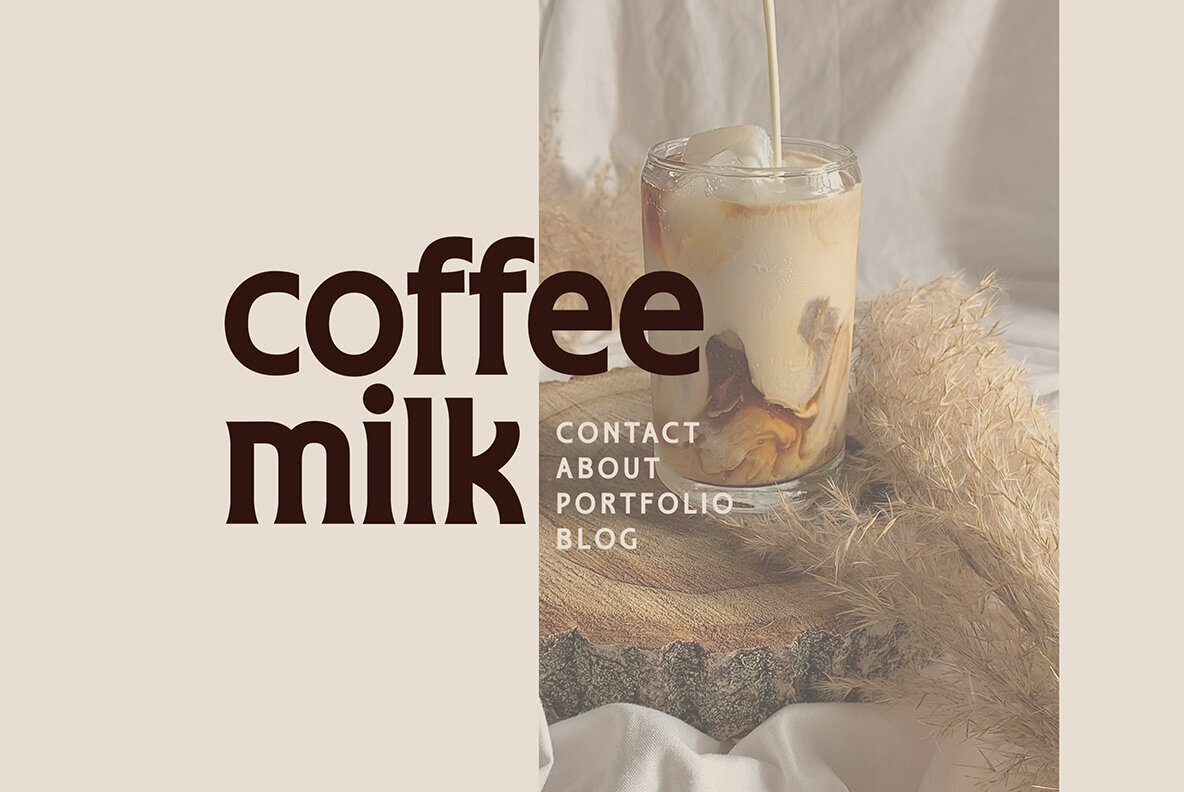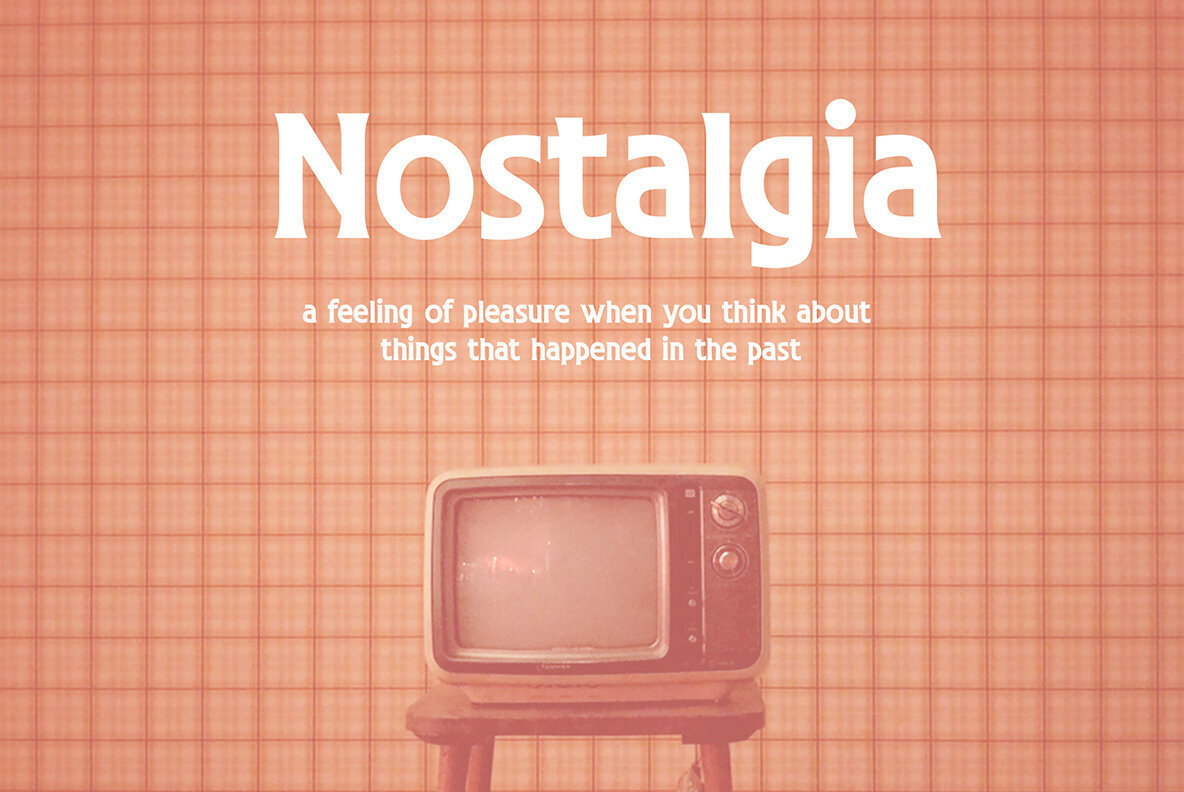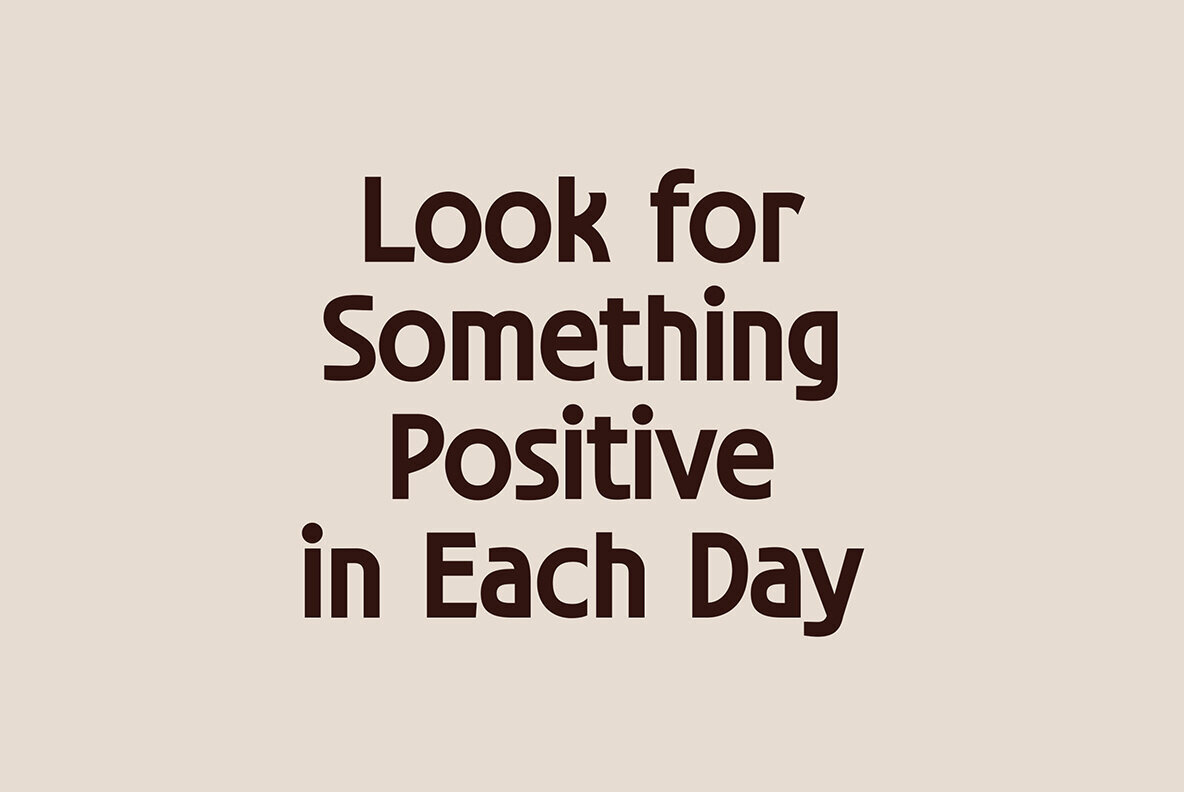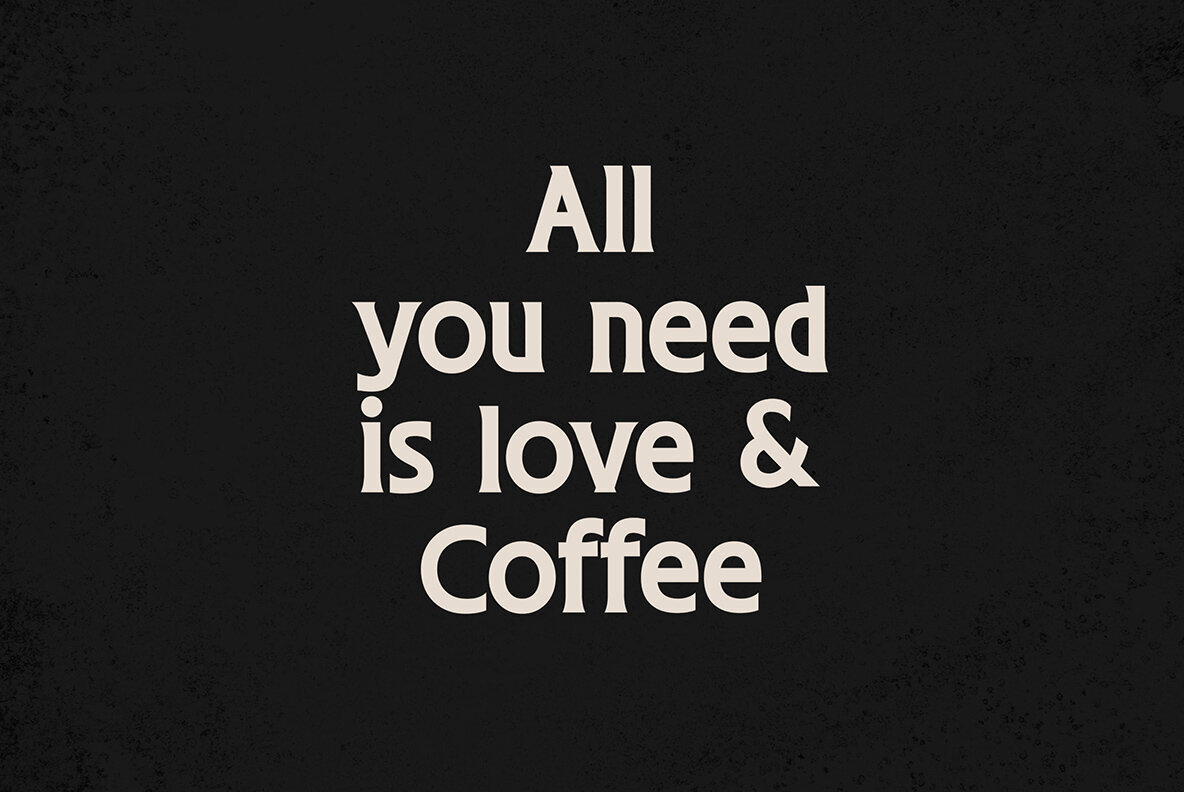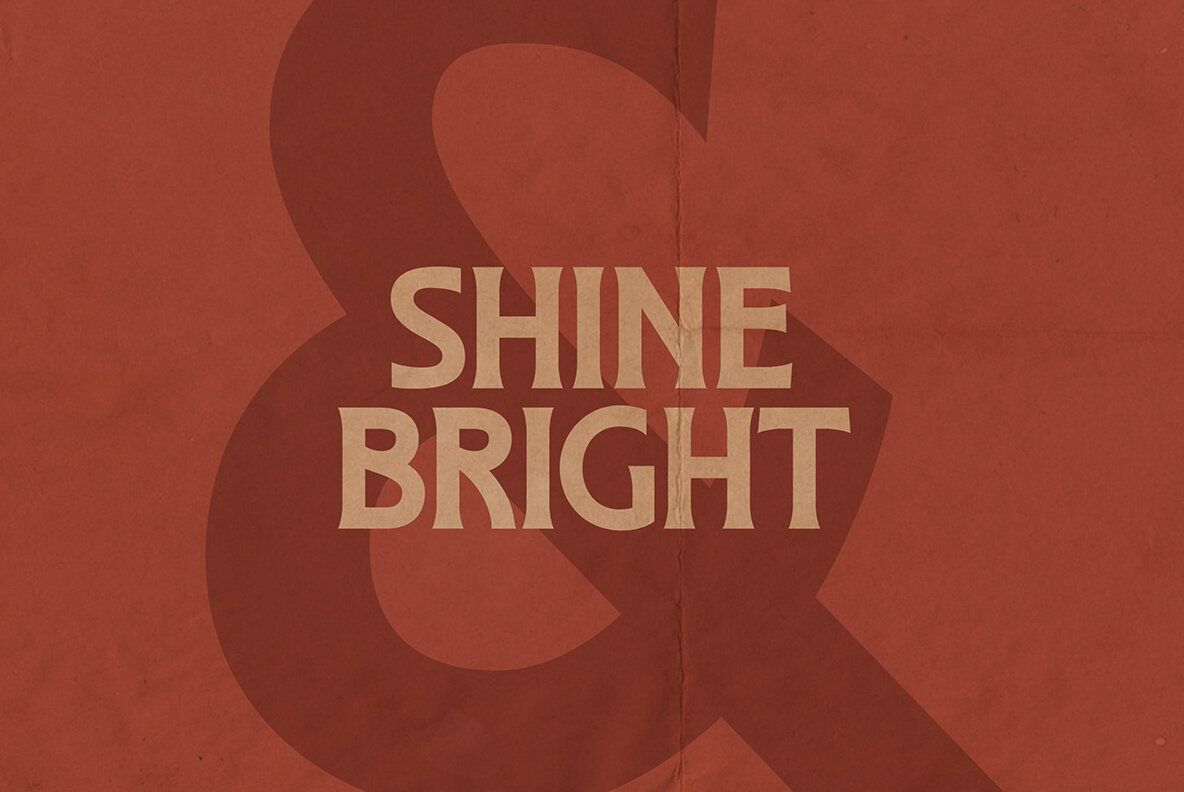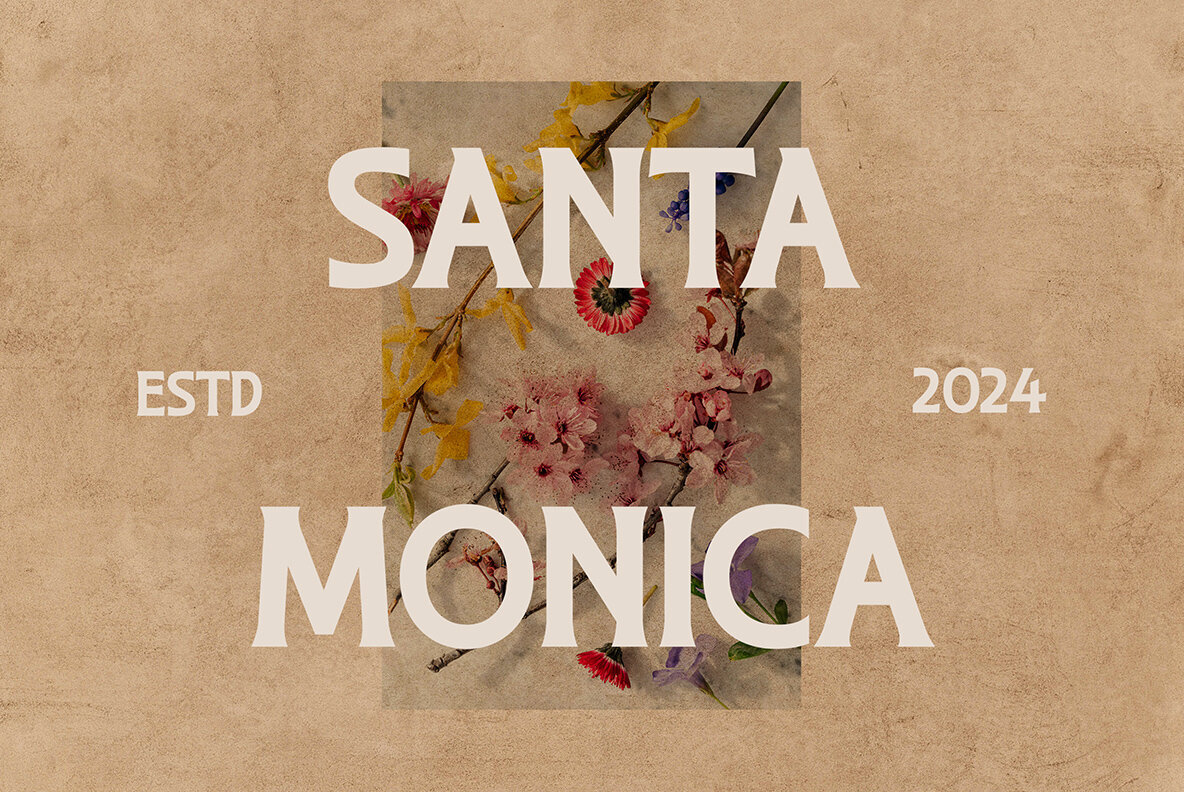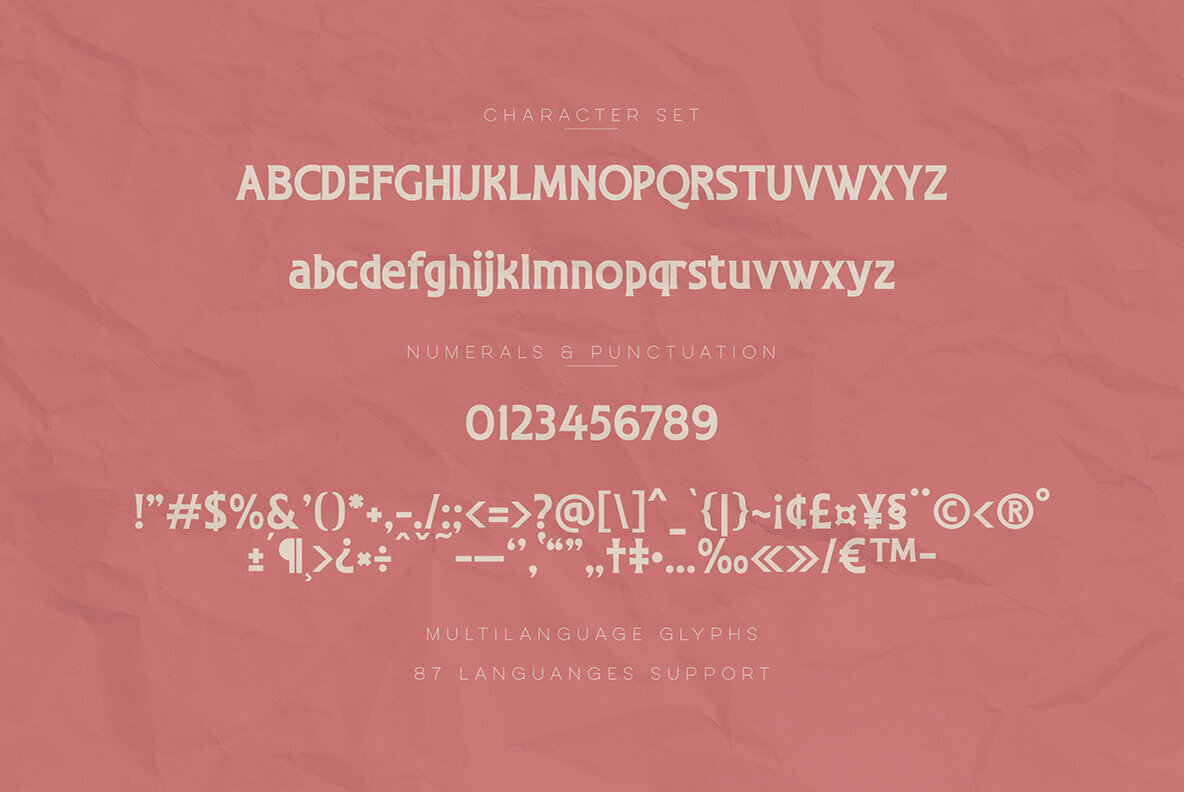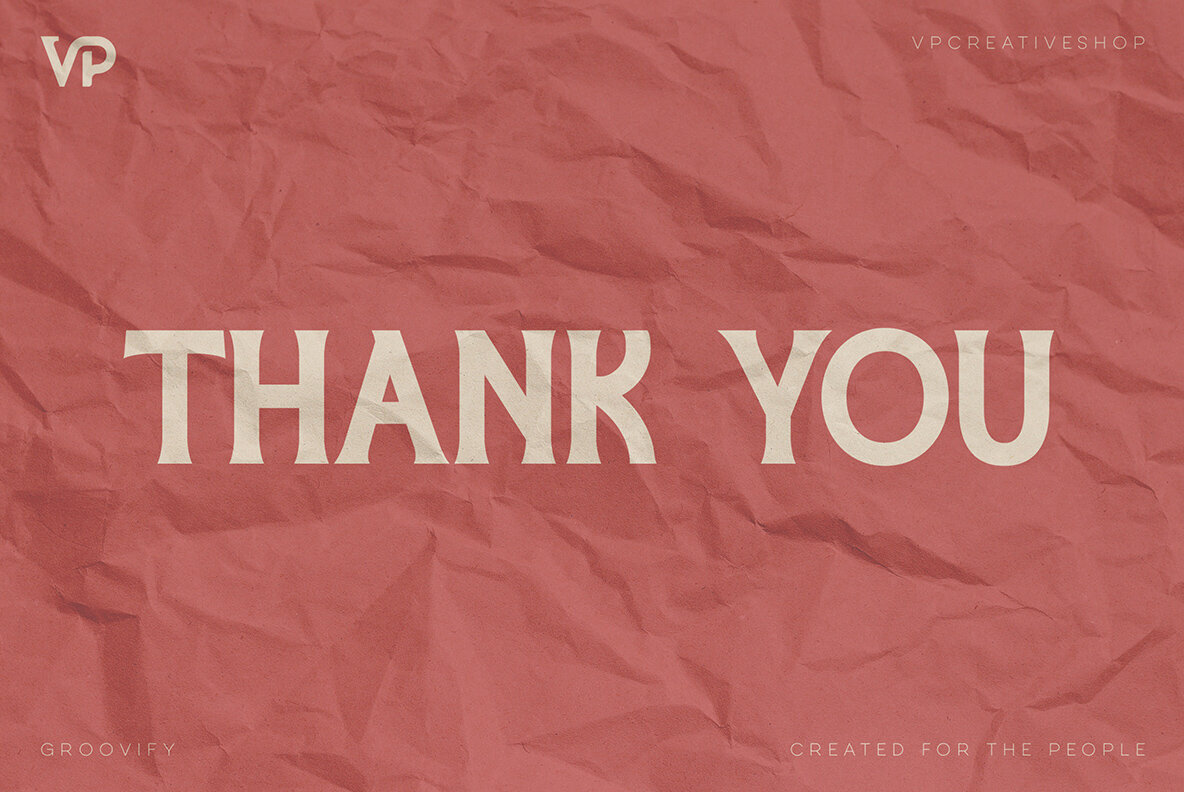
Groovify Font
Groovify Regular
Groovify Sans
Groovify Italic
Groovify Sans Italic
Groovify is a bold, retro display typeface that brings vintage charm to any project. Designed for both maximum readability and style, it comes in display and sans serif versions, with italics available for each. With support for 87 languages, Groovify is ideal for global projects needing a versatile and standout font. The typeface's unique blend of retro and modern design elements makes it perfect for posters, branding, and other creative designs.
This eye-catching font captures the spirit of the past while providing a contemporary twist, making it a valuable tool for transforming your typography. Whether you're working on a global campaign or a local project, Groovify's extensive language support and distinctive aesthetic ensure it will meet your design needs.